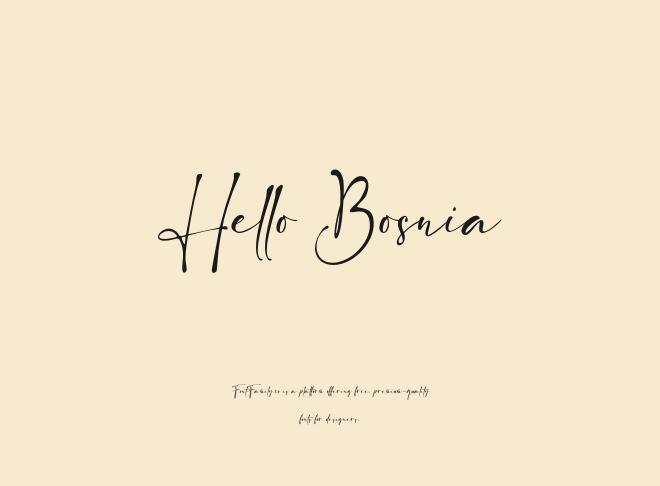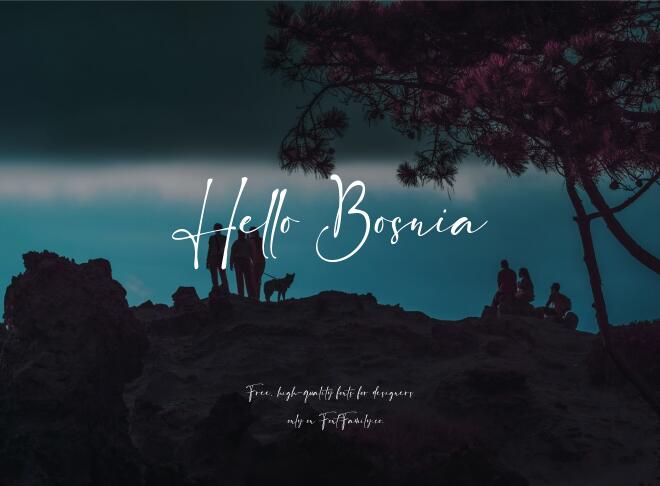
Hello Bosnia Font
Welcome to the delightful charm of Hello Bosnia Font. Designed by Creative Tacos, this handwritten, playful, yet elegant font exudes a modern vibe that is perfect for a broad spectrum of design work. It's a great alternative to more formal script fonts, delivering an approachable and friendly tone to your projects. Hello Bosnia Font is ideal for logos, headers, company or personal branding, product packaging, cards or any design that requires a personalized feel. Its modern elegance also makes it suitable for wedding invitations or romantic-themed projects. This font is a must-have in any designer's toolkit as it effortlessly combines playfulness and sophistication. Its unique style sets it apart, making your design stand out. Download Hello Bosnia Font today and let your creativity shine.